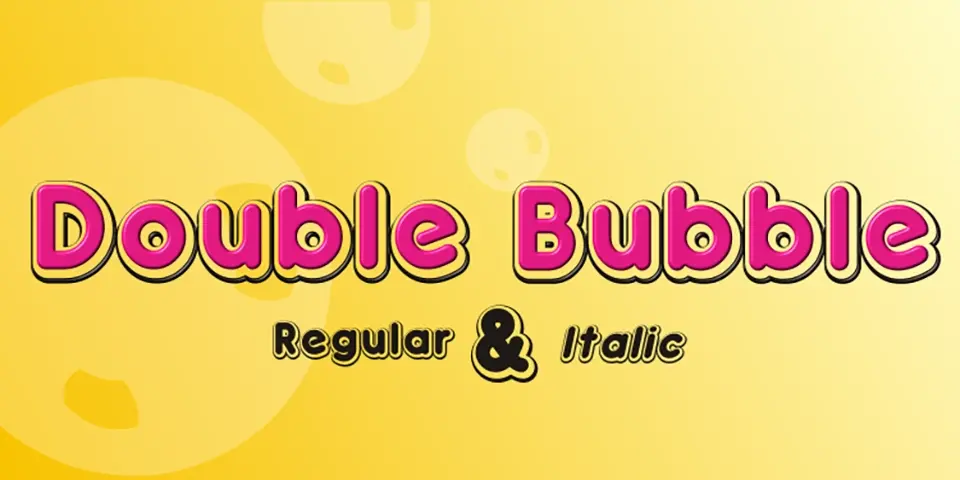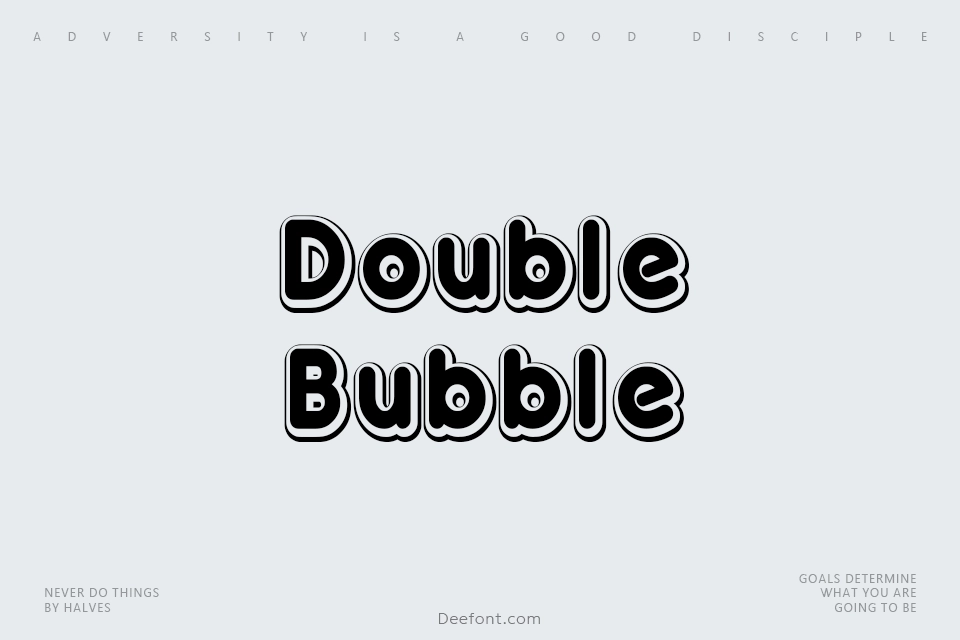
Double Bubble Font
Double Bubble is a charming groovy display font featuring rounded, chubby letterforms with soft edges and dynamic structure. Designed with playful personality, this eye-catching typeface conveys joy and sincerity, making it ideal for children's books, candy packaging, event posters, branding projects, and any creative work requiring a splash of personality. The font's distinctive bubble-like characters deliver a contemporary yet whimsical aesthetic that stands out in various design applications.